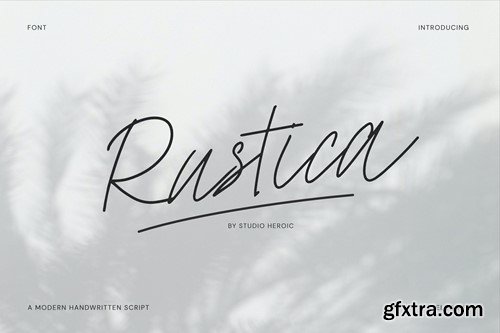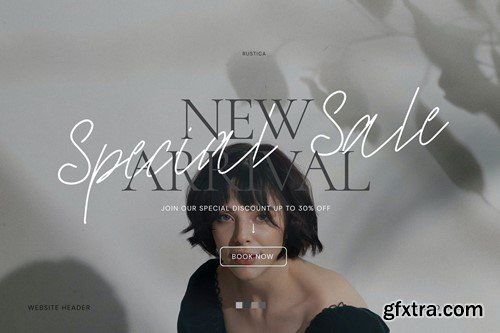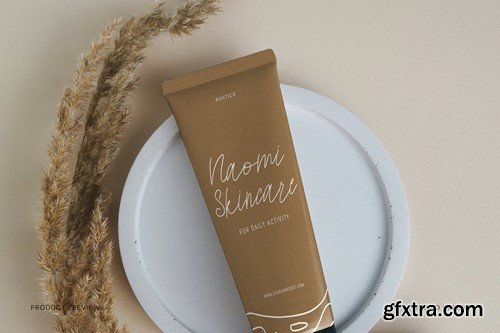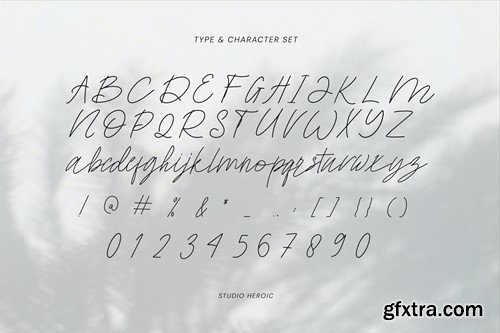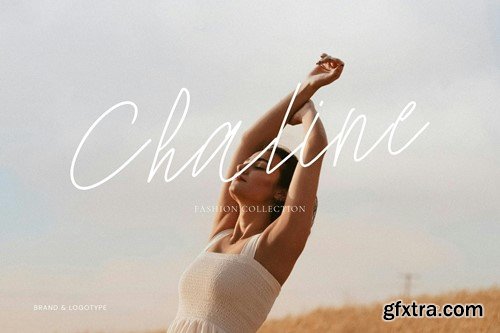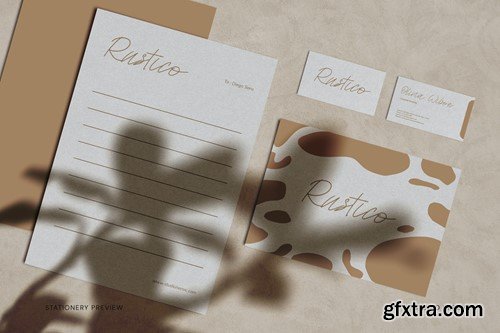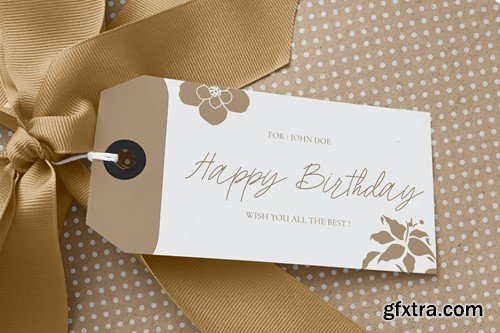
鲁斯特卡 - 精致手写体字体 B839AN9
Rustica - Elegant Script Font
Rustica is a elegant script typeface that's perfect for your next branding project. Created with simple & elegant lines. Perfect for your next logo design project, or for creating traditional ad layouts or marketing content. File Included: – OTF Thanks so much for checking out my shop, and please get in touch if you have any questions!